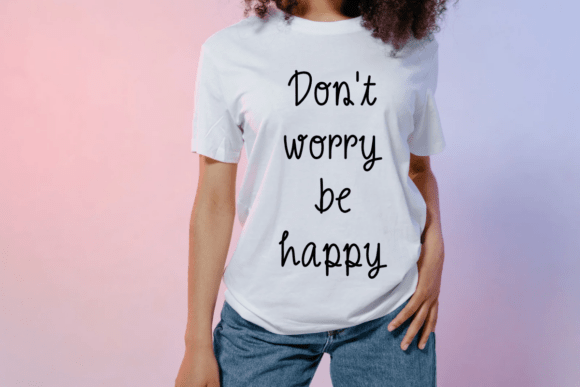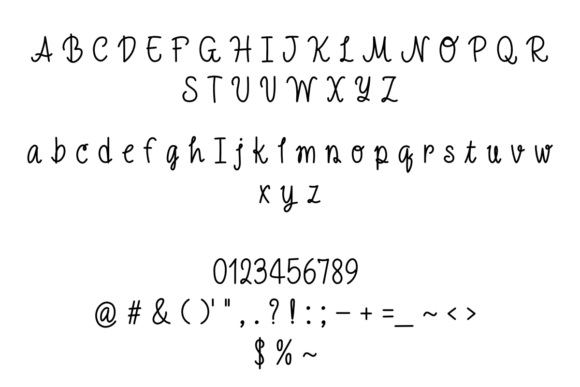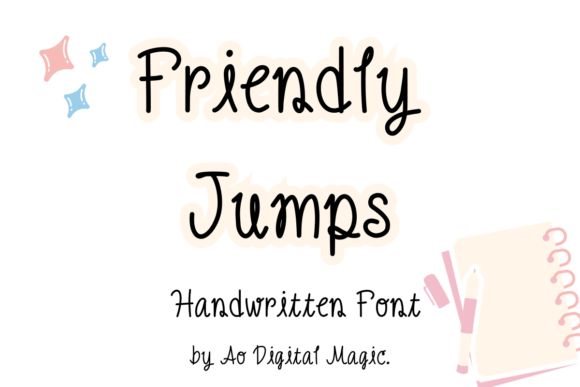
Introduction to Friendly Jumps Font
As a designer, have you ever found yourself staring at a blank page, searching for the perfect font to bring your creative vision to life? I know I have. That’s why I’m excited to share with you one of my favorite design resources: the Friendly Jumps Font. This charming and neat handwritten font is perfect for all your creative projects, from social media posts to digital planners and crafting projects.
What sets Friendly Jumps apart is its high-quality, transparent background that makes it easy to use on any background. Whether you’re working on a free download or a paid project, this font is a valuable asset to have in your design arsenal. With its unique and playful style, Friendly Jumps Font is sure to add a touch of personality to any design.
Key Features of Friendly Jumps Font
- High-quality, bold, and playful design perfect for creative projects.
- Comes in a transparent background, allowing for easy layering and customization.
- Available in a single size, 400, with a resolution of 300 DPI, making it suitable for digital and print applications.
- Features a unique, hand-drawn style that adds a touch of personality to any creative project.
- Perfect for use in logos, branding materials, and other visual identity elements where a friendly and approachable tone is desired.
Honest Review: Friendly Jumps Font
I recently had the chance to work with Friendly Jumps Font, a font I initially thought would be a game-changer for my creative project. Upon closer inspection, I found some notable strengths that made it worth considering.
- High-quality typography: Friendly Jumps Font offers crisp and clear typography that’s perfect for digital designs.
- Transparent background: The transparent background allows for seamless integration with any design, making it a great addition to any project.
- ⚠️ Limited font family: While the font itself is great, the limited font family options might not be enough for more complex design projects.
- ⚠️ Not ideal for print designs: Due to its digital nature, Friendly Jumps Font might not be the best choice for print designs that require high-resolution typography.
Overall, Friendly Jumps Font is a solid addition to any design arsenal. While it may not be perfect for every project, its high-quality typography and transparent background make it an excellent choice for digital designs and creative projects. I’d definitely recommend it as a free design resource, but be aware of its limitations.
Tips for Getting the Most Out of Friendly Jumps Font
Experiment with different font sizes and colors to create visually appealing designs. Use Friendly Jumps Font in combination with other design elements to add depth and interest to your creative project.
Friendly Jumps Font is ideal for creative projects such as graphic design, digital art, and typography. Its high quality and transparent background make it a valuable design resource for professional designers and artists.